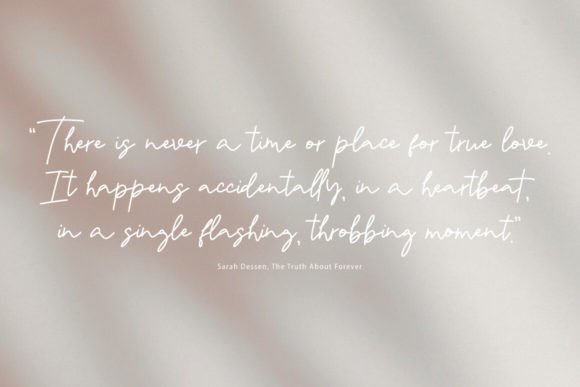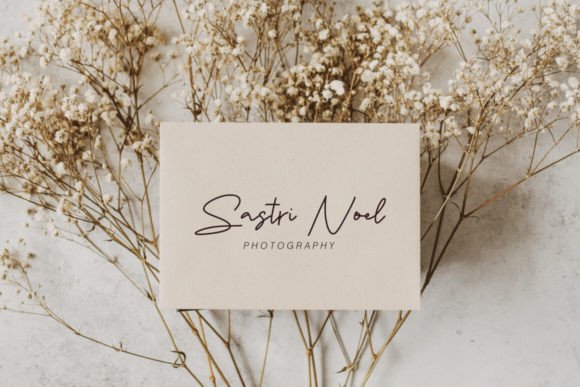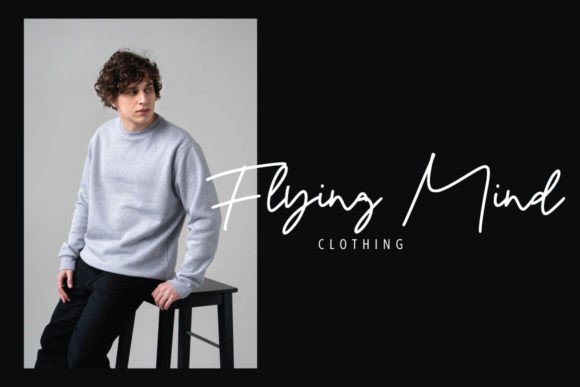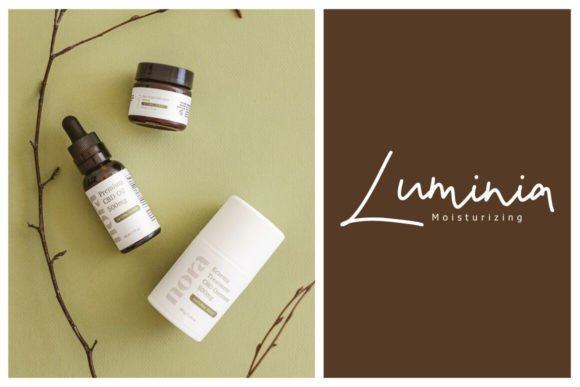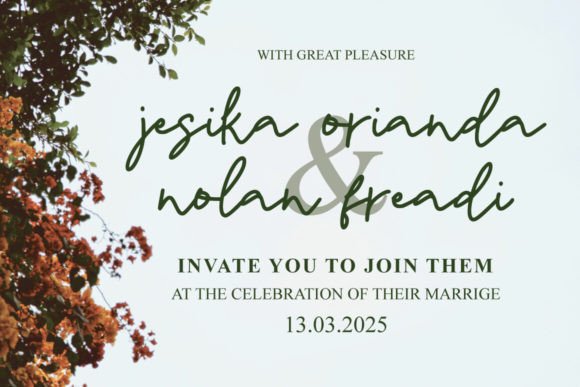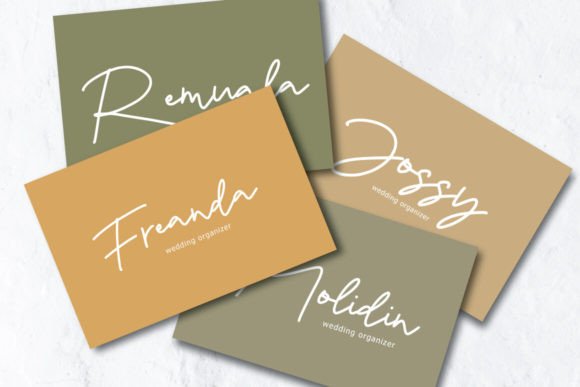
Introduction to Miguera Font
Have you ever stared at a blank page, pencil in hand, trying to bring a creative project to life? The blank slate can be intimidating, but what if you had the perfect tool to unlock your imagination? Enter Miguera Font, a stunning signature font designed to add a touch of elegance to your designs.
With its handmade signature style, decorative characters, and dancing baseline, Miguera Font is a design resource that’s sure to elevate your creative projects. Whether you’re working on a greeting card, branding materials, or business cards, this font is the perfect addition to your toolkit. And the best part? It’s available for free download, making it a valuable resource for designers on a budget.
From transparent backgrounds to high-quality typography, Miguera Font offers a level of customization that’s hard to find in free fonts. With its PUA unicode and Open Type features, designers can access a wide range of alternative characters to create truly unique designs.
Key Features of Miguera Font
- High-quality design resource ideal for creative projects, including logos, branding materials, and more.
- Available for free download with a transparent background, allowing for seamless integration into any design.
- Designed to be highly versatile, with a clean and modern aesthetic suitable for a wide range of creative applications.
- Features a unique blend of classic and contemporary elements, making it a standout choice for designers looking for something distinctive.
- Includes a comprehensive character set, with support for a wide range of languages and characters.
Honest Review: Miguera Font
I recently stumbled upon the Miguera Font while working on a creative project and was excited to give it a try. As a designer, I appreciate high-quality fonts that can elevate the visual aspect of my work.
- ✨ High-quality design: The Miguera Font has a crisp and clean design that is perfect for digital displays.
- ✨ Transparent background: The font comes with a transparent background, which allows for easy customization and blending with other design elements.
- ⚠️ Limited font styles: While the Miguera Font is available in several weights, it would be great to see more font styles and variations in the future.
- ⚠️ Limited language support: The font only supports a limited set of languages, which might be a concern for designers working on international projects.
Overall, I was impressed with the Miguera Font and would recommend it as a design resource for creative projects. With some additional font styles and language support, it has the potential to become a top-tier font in the design community.
The Miguera Font is a versatile design resource that can be used in a variety of creative projects, including logos, brochures, and social media graphics. Its high-quality design and transparent background make it ideal for use in designs that require a clean and modern look.
To get the most out of the Miguera Font, use it in combination with other high-quality design elements, such as graphics and images. Experiment with different font sizes and styles to find the perfect look for your design. Additionally, use the font’s transparent background to create a seamless design that blends with other elements.
Yes, the Miguera Font has a transparent background, making it ideal for use on logos, icons, and other design elements where a clear background is necessary. This feature allows designers to easily layer the font over other design elements without any visual distractions.